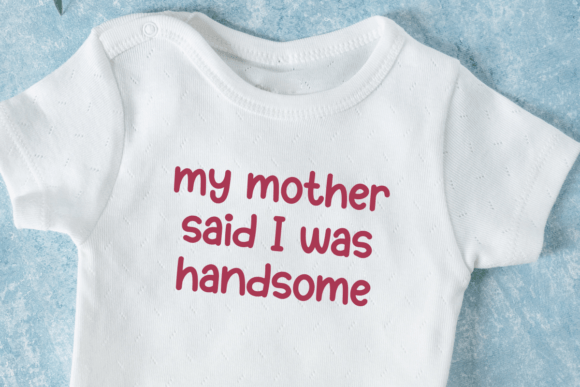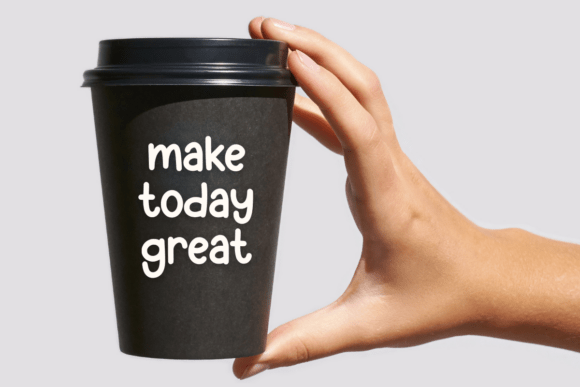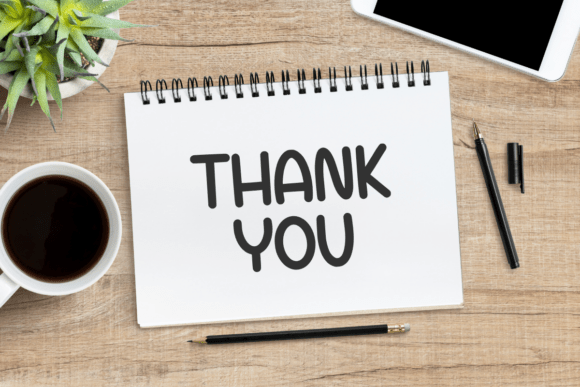
Introduction to Plannerschool Font
Have you ever stumbled upon a font that makes your creative projects feel like a breath of fresh air? For designers and artists, discovering the perfect font can be a game-changer. It’s that moment when your ideas start flowing, and your design begins to take shape. For many, that moment came when they discovered the Plannerschool Font.
This charming handwritten font has been making waves in the design community with its smooth, rounded edges and bold, bubbly style. Whether you’re working on a planner, journal, or social media graphic, the Plannerschool Font adds a touch of personality to your design. Its clean and friendly letterforms make it a valuable resource for designers looking to create high-quality, creative projects with a consistent and polished look.
Key Features of Plannerschool Font
- High-quality design resource with a modern and clean aesthetic, ideal for creative projects and planners.
- Features a transparent background, allowing for seamless integration with various design elements and backgrounds.
- Designed with precision and attention to detail, resulting in a crisp and clear font with excellent readability.
- Unique characteristics include a geometric and sans-serif style, making it perfect for modern and minimalist designs.
Honest Review: Plannerschool Font
I recently came across the Plannerschool Font, and I’m excited to share my thoughts on this design resource. As a designer, I’m always on the lookout for high-quality fonts that can elevate my creative projects.
The Plannerschool Font is a beautiful, modern sans-serif typeface that’s perfect for various design applications. One of the standout features of this font is its transparent background, which makes it easy to layer and combine with other design elements.
Here are some things that work well with the Plannerschool Font:
- ✨ High-quality design: The font is crisp and clean, making it perfect for a variety of creative projects.
- ✨ Versatility: The Plannerschool Font is suitable for both digital and print design applications.
- ⚠️ Limited font sizes: The font may not be as effective at very large or very small sizes.
- ⚠️ Not ideal for serif-based designs: The font’s sans-serif design may not be the best fit for projects that require a more traditional, serif-based look.
Overall, I’m impressed with the Plannerschool Font. It’s a high-quality design resource that’s perfect for a variety of creative projects. While it may have some limitations, it’s definitely worth considering for your next design project.
Tips for Getting the Most Out of Plannerschool Font
Use the Plannerschool Font on a transparent background for a clean and minimalist look. Experiment with different font sizes and colors to add depth to your design. This font is perfect for creative projects, such as planners, journals, and digital art.
The Plannerschool Font is ideal for design resources, such as printables, templates, and social media graphics. You can also use it for free download on your personal blog or website. With its high-quality design, the Plannerschool Font is a versatile and useful design resource for any creative project.